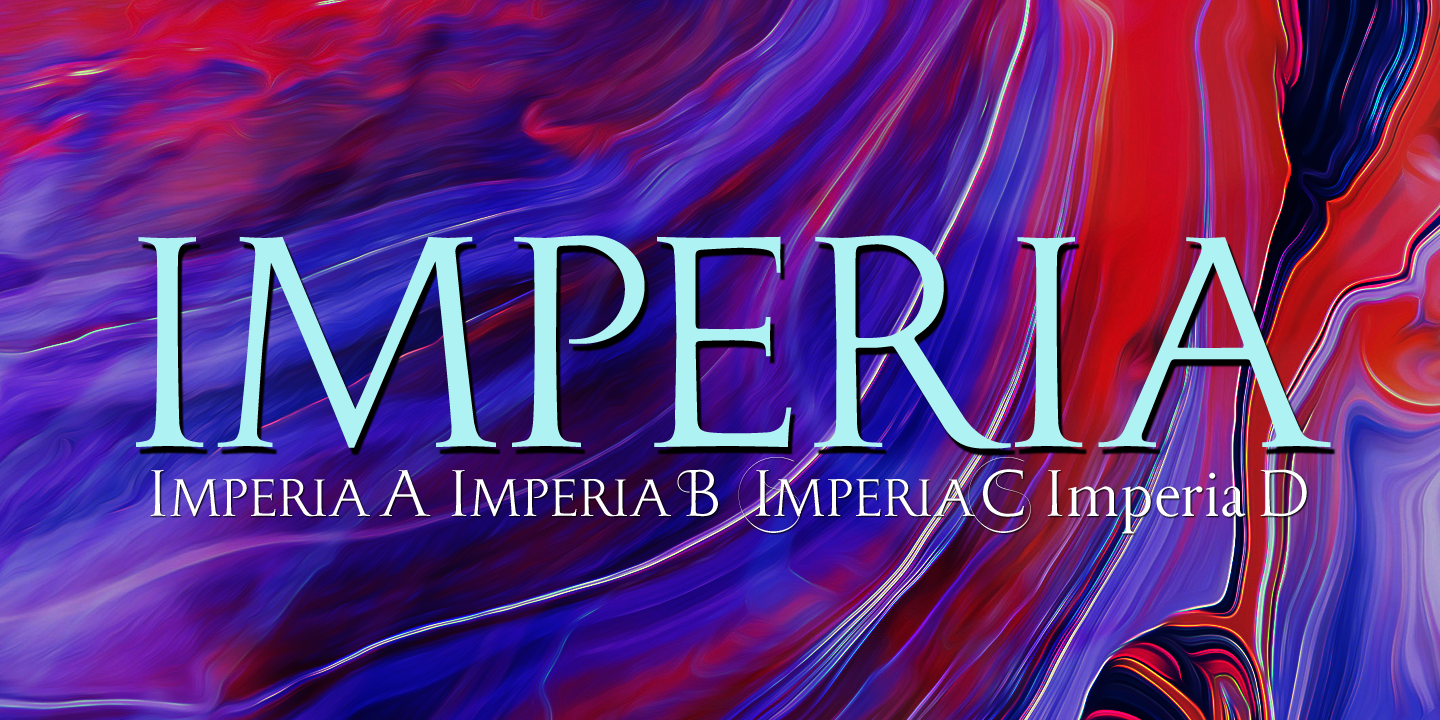
Imperia Font Free Download – Command attention with this majestic serif typeface that blends regal elegance with modern versatility. Perfect for luxury branding, editorial headlines, and sophisticated design projects, Imperia exudes authority and timeless beauty.
Where Imperia Font Excels
This aristocratic font elevates:
High-End Branding – Luxury logos, fashion labels, and premium packaging
Editorial Majesty – Magazine covers, book titles, and newspaper headlines
Corporate Authority – Law firms, financial institutions, and executive branding
Wedding Elegance – Formal invitations and classic stationery
Why Imperia Font Stands Above
This font delivers:
Sharp, confident serifs with refined details
Perfect balance of tradition and contemporary edge
Exceptional readability at any size
Versatile for both print and digital royalty
Imperia Font Family
The complete royal collection includes:
Imperia Regular
Imperia Bold
Imperia Italic (with elegant flourishes)
Imperia Light
Imperia Condensed